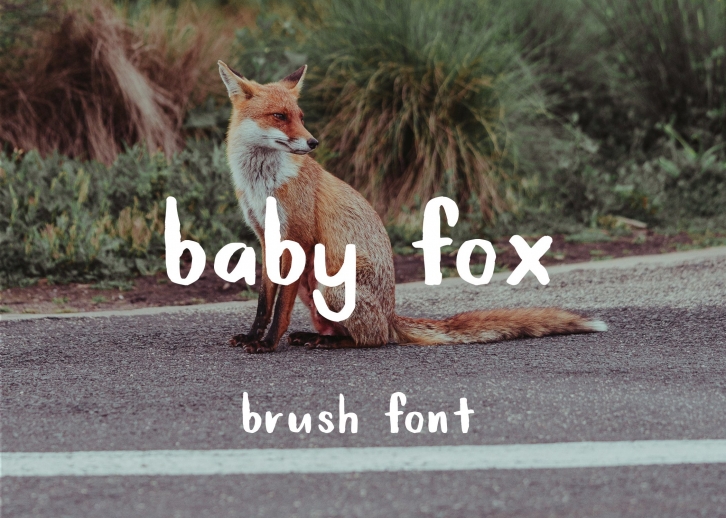
This font was handpainted by ZansariType in Hamilton, New Zealand using a basic hand lettering brush and indian ink. The scanned copy was vectorised in Adobe Illustrator and converted into a font using fontlab.
This font would be perfect for advertisements, logos and crafts like quote posters
This font only supports the English language